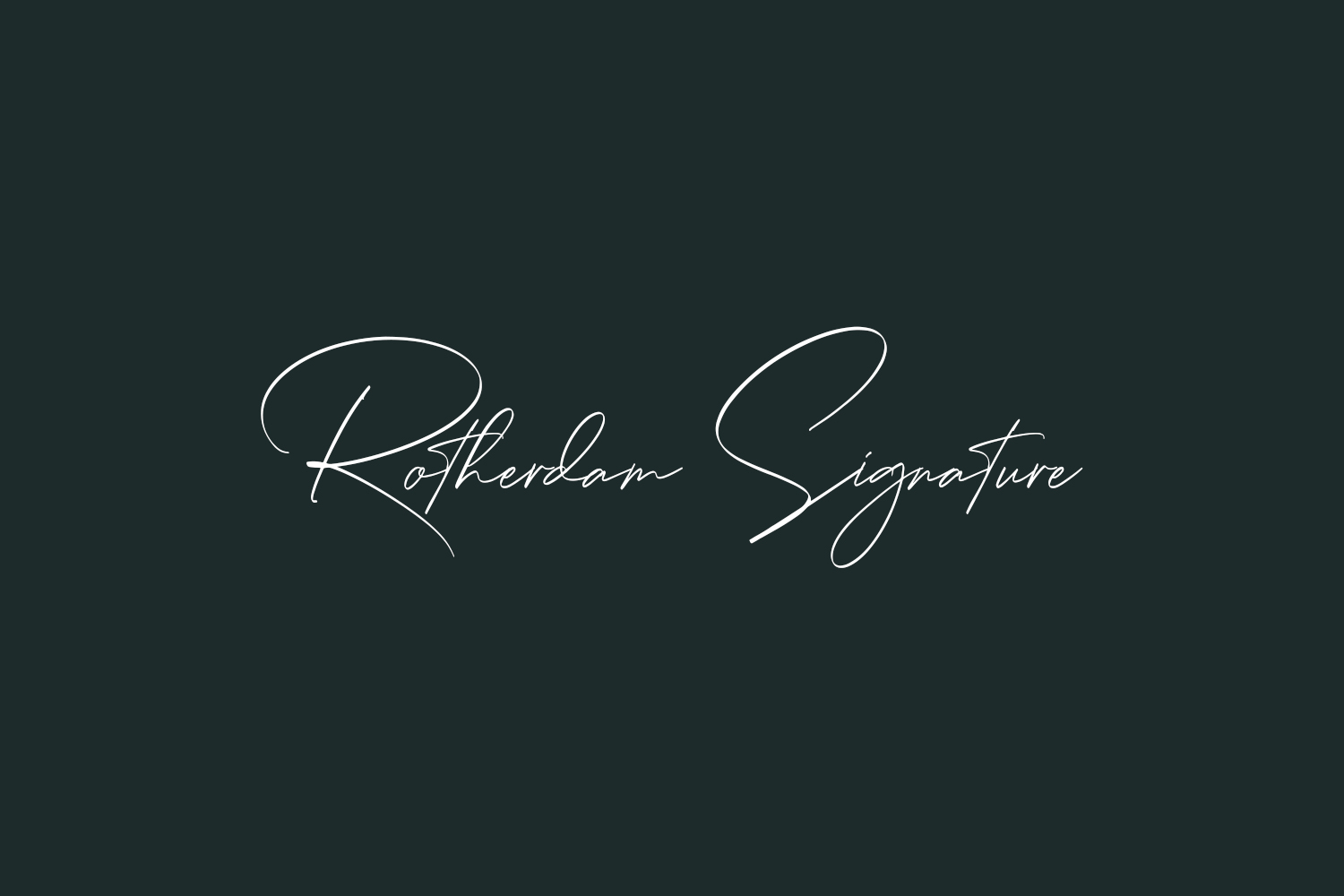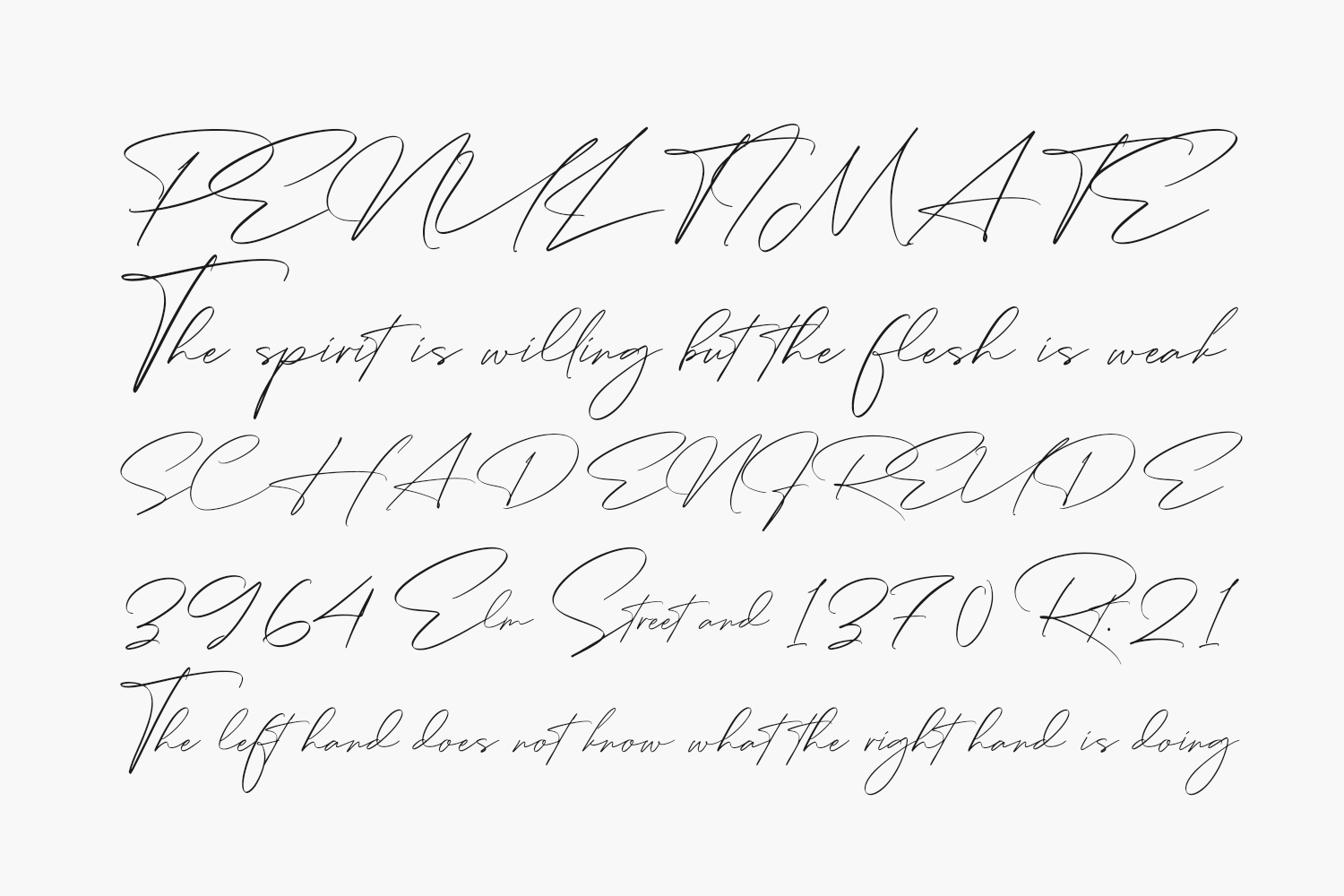
Rotherdam Signature Free Font is a beautiful light handwritten font with a unique feel and a stunning impact. It will add a luxury spark to any design project that you wish to create. Rotherdam Signature Free Font was designed by Perspectype Studio and is free for personal use only. Please purchase the full version for commercial use.